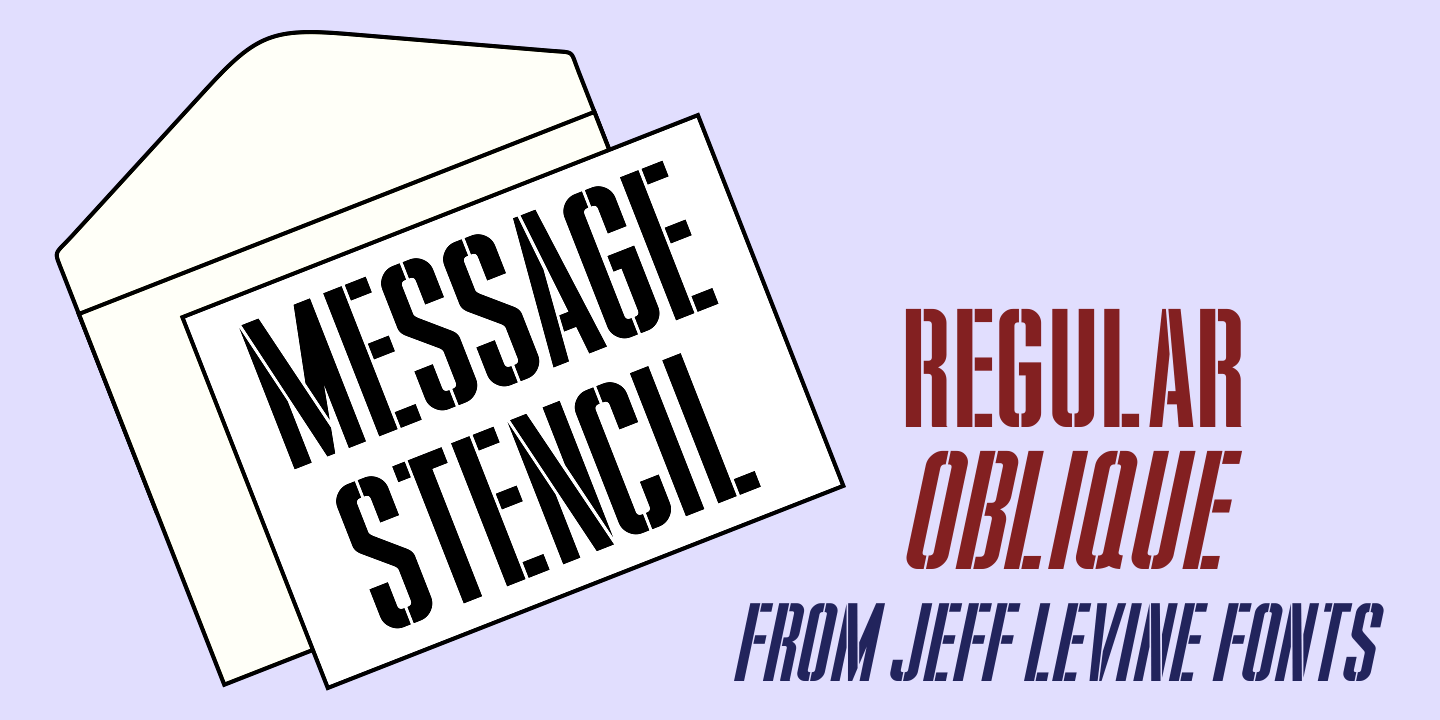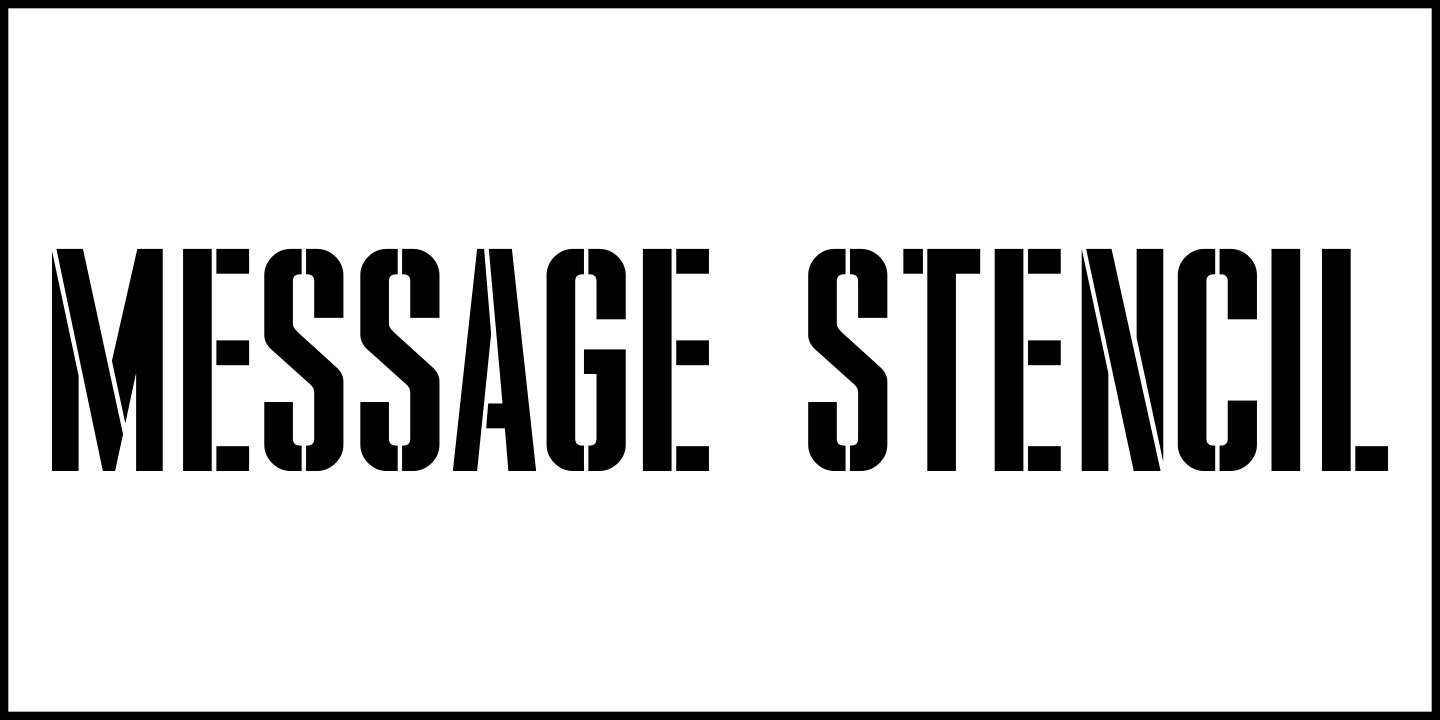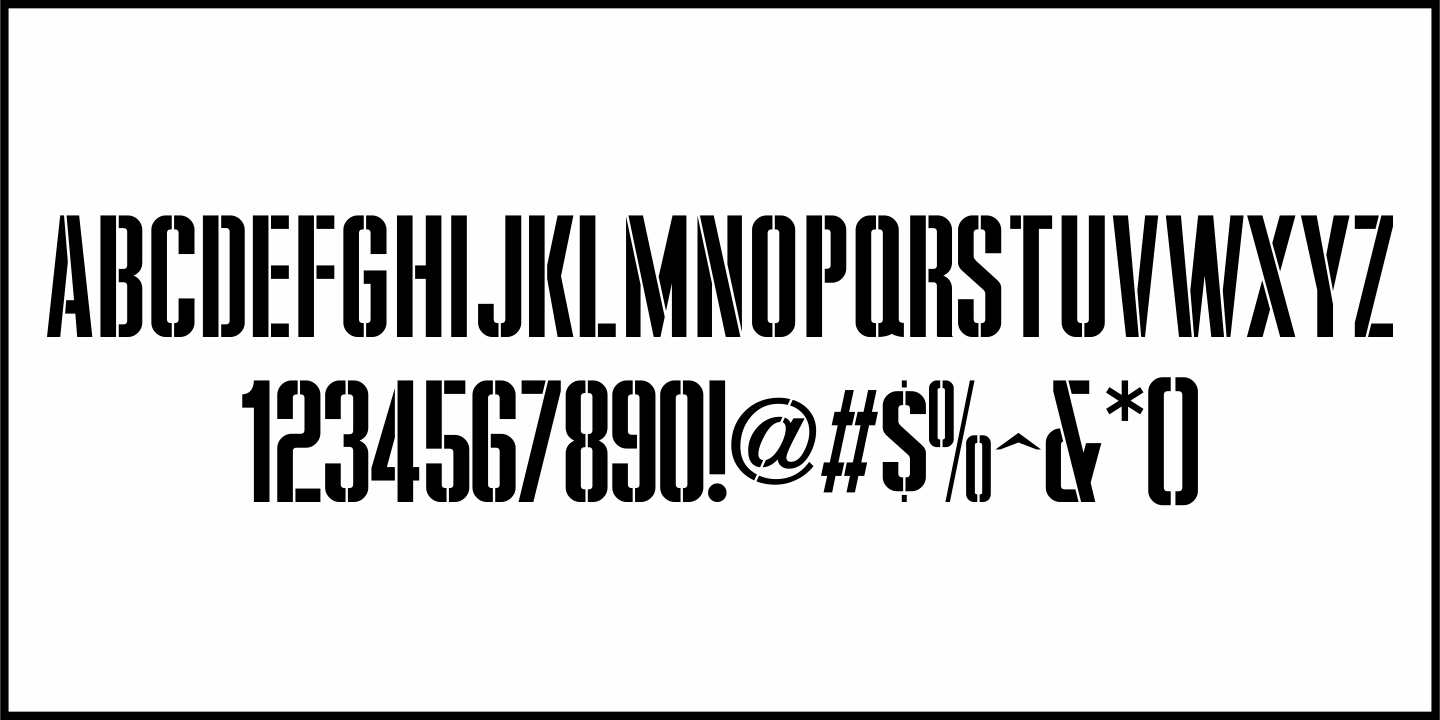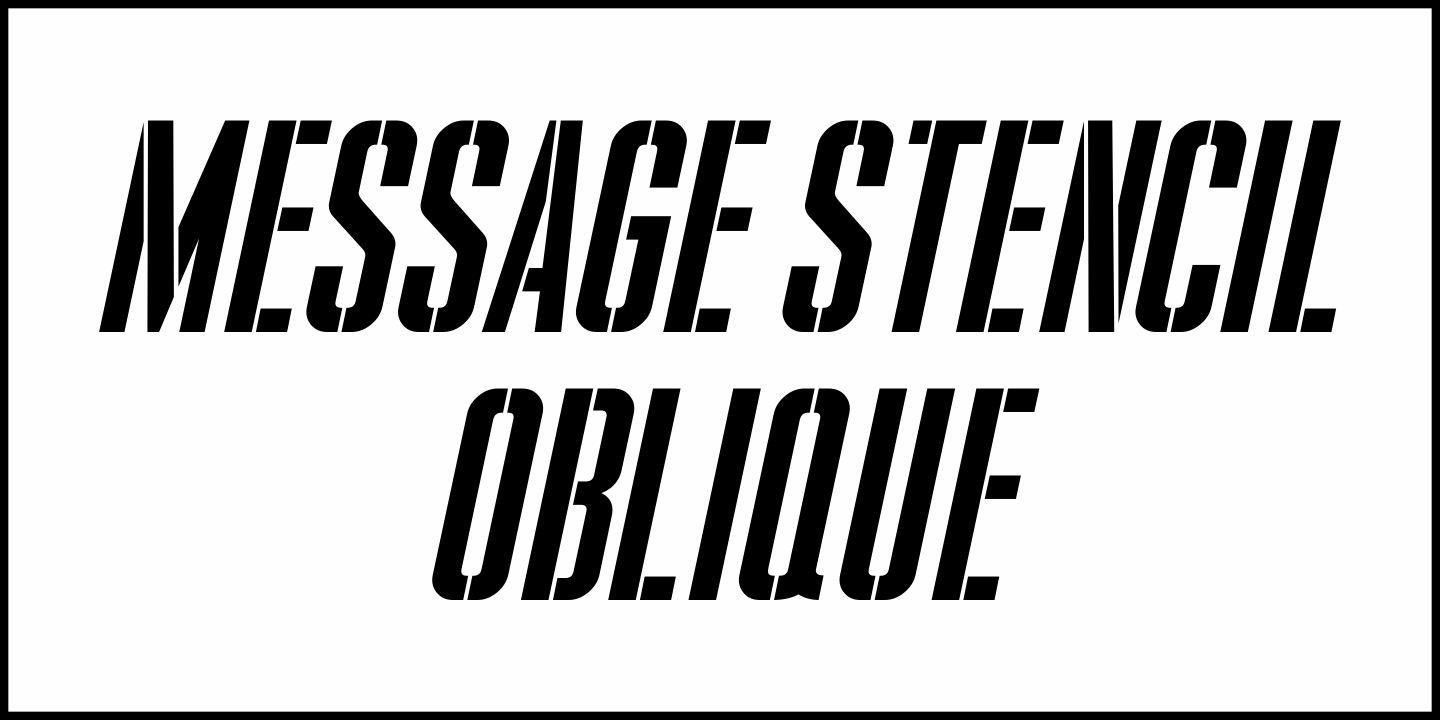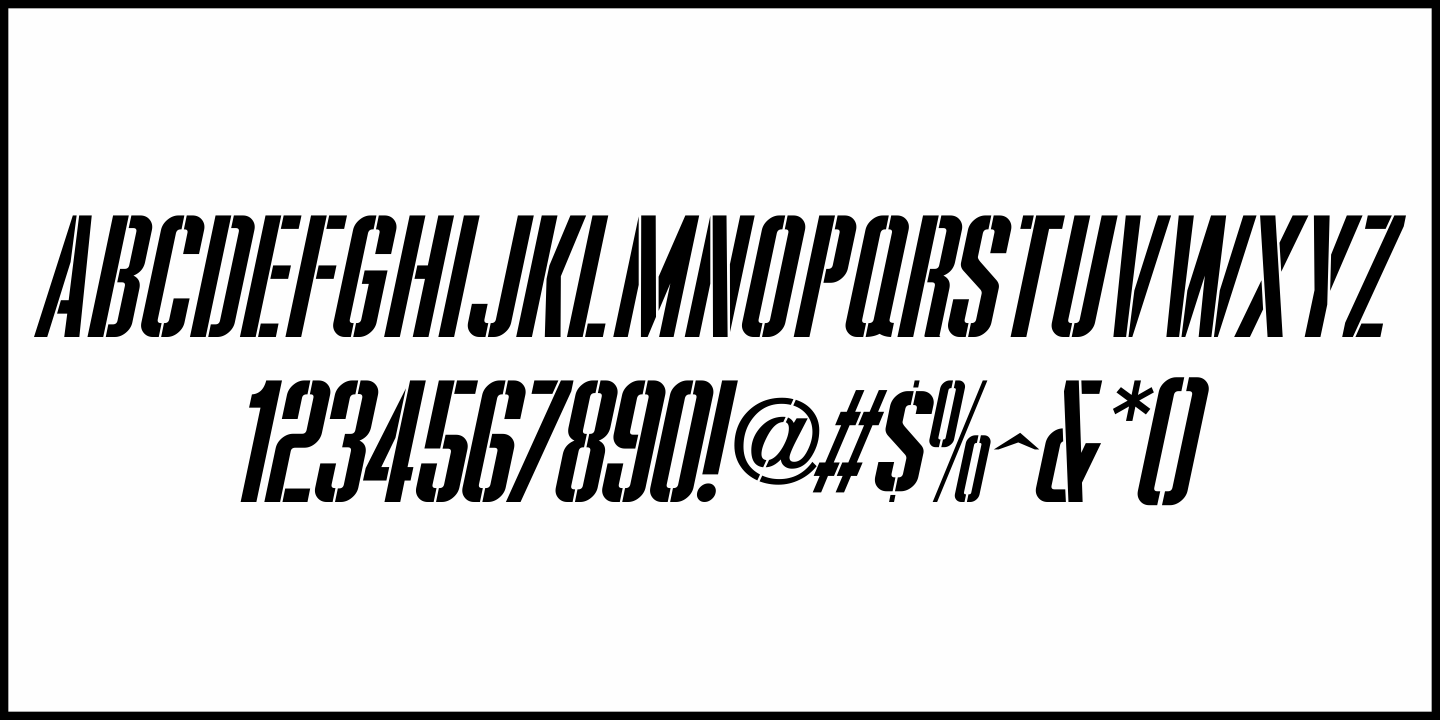
Message Stencil
Buy NowIn the March 12, 1952 issue of Motion Picture Daily was an advertising piece that touted the sales potential of monthly magazines. The word copy for this ad was set in a condensed sans serif stencil typeface.
Working from the limited characters avialable and expanding the character set with a new interpretation of this design, it is now available as Message Stencil JNL in both regular and oblique versions.